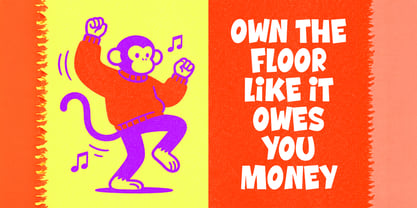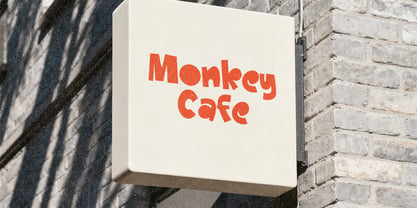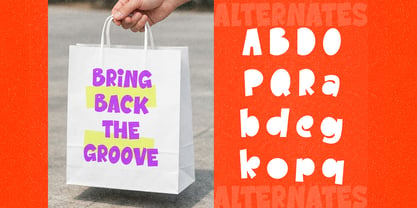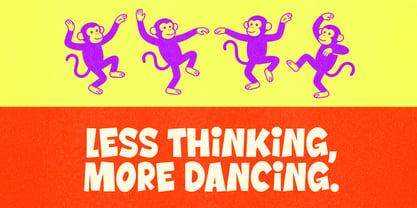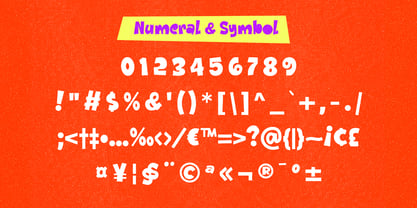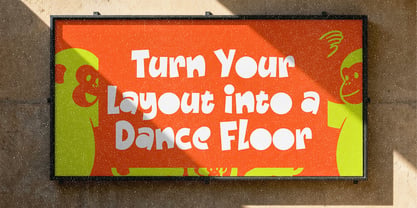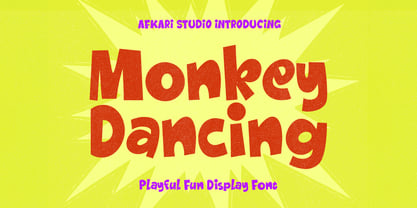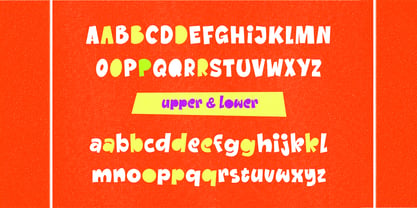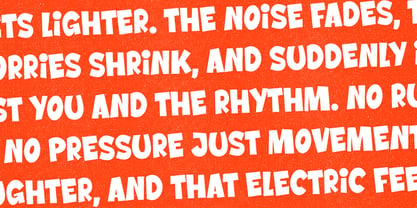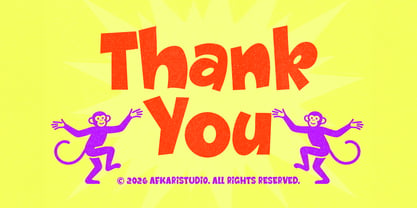
Monkey Dancing
by Afkari Studio
The Monkey Dancing Font Family was designed by Musthafa Kamal Emje and published by Afkari Studio. Monkey Dancing contains 1 styles. More about this family
Monkey Dancing is a playful fun display font designed to bring cheerful energy and lively personality into your creative projects. With bouncy letterforms and friendly character shapes, this font instantly creates a joyful and eye-catching appearance. Inspired by fun, movement, and playful expression, Monkey Dancing is perfect for designs that need a happy and energetic tone while still maintaining strong readability for headlines and branding. It works beautifully across both digital and print projects. Whether used for kids branding, posters, packaging, or social media graphics, Monkey Dancing adds warmth, fun, and creative charm to every design. Highlighted Features: - Playful display font style - Bold and friendly letterforms - Uppercase & lowercase characters - Numbers & punctuation - Strong readability for headlines - Perfect for fun and kids-themed designs - Fully accessible without additional design software. - Mültîlíñgúãl Sùppört for; ä ö ü Ä Ö Ü ß ¿ ¡ Whether you're creating fun branding, colorful packaging, or energetic promotional materials, Black Name helps your design stand out with warmth and personality. Add a lively and memorable touch to your next creative project with this fun display typeface.
Designers: Musthafa Kamal Emje
Foundry: Afkari Studio